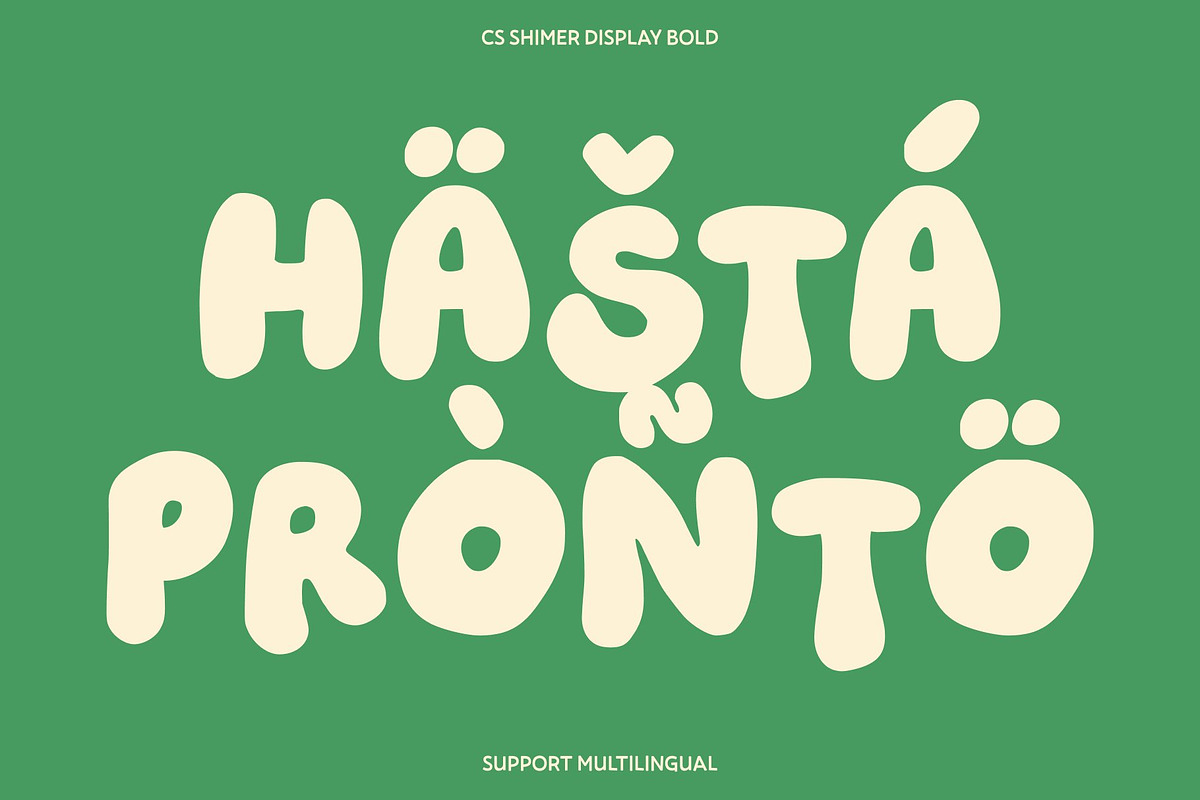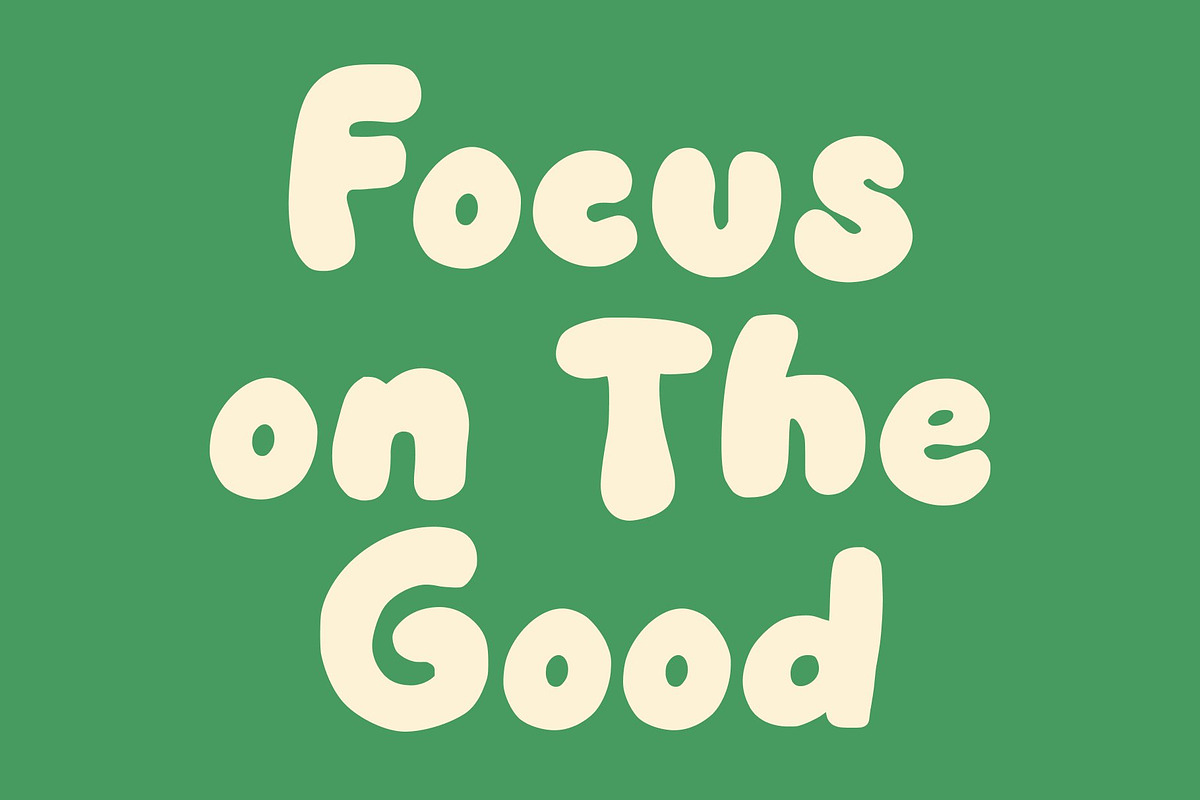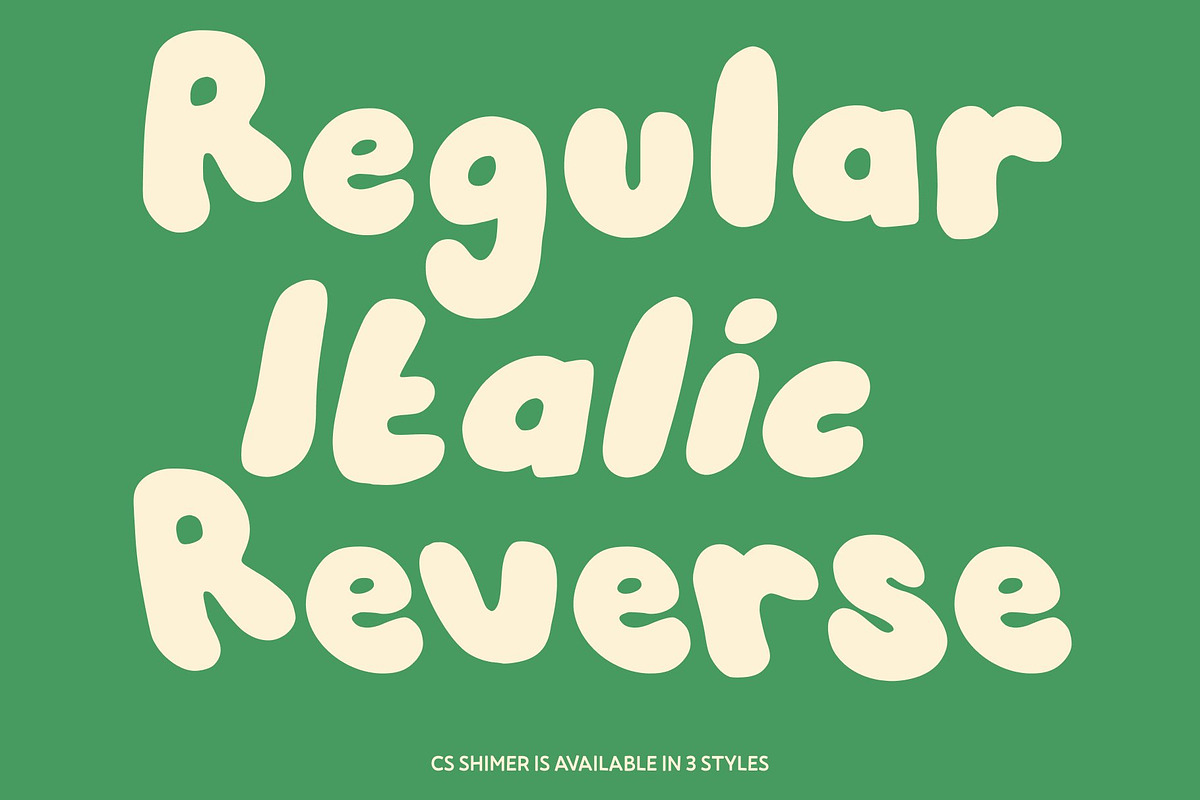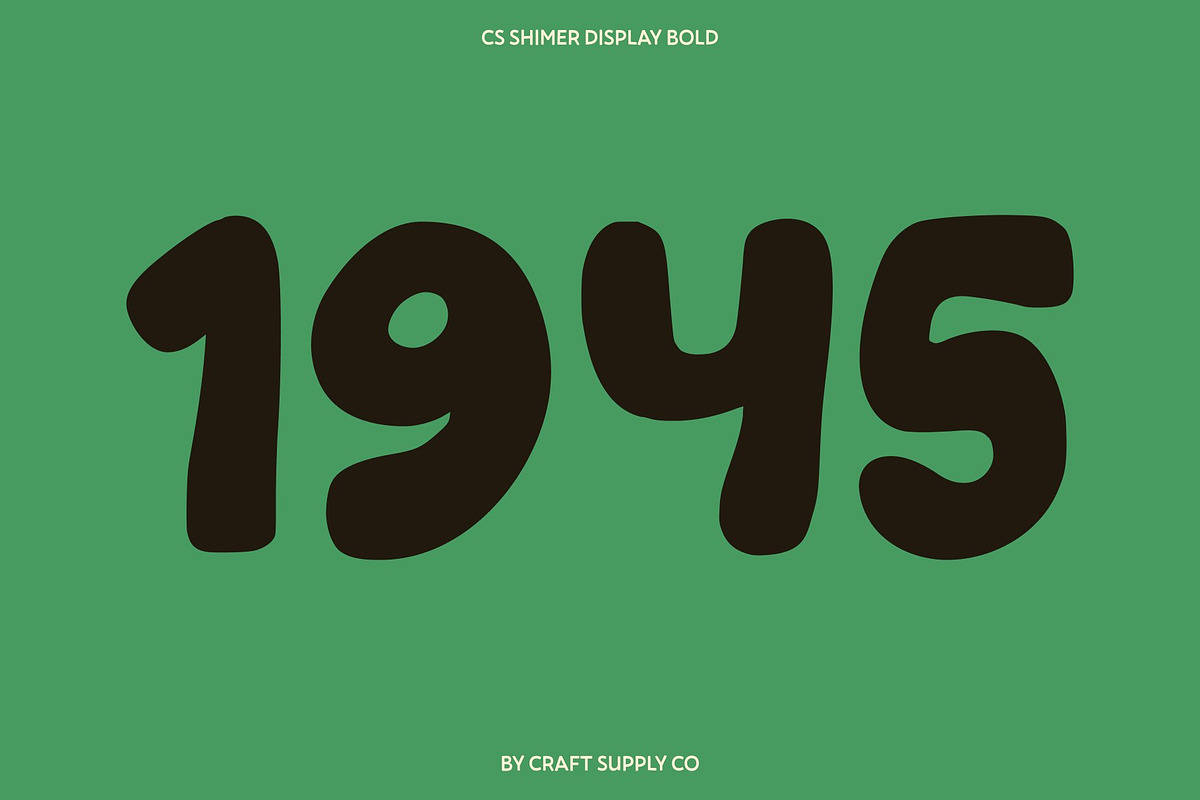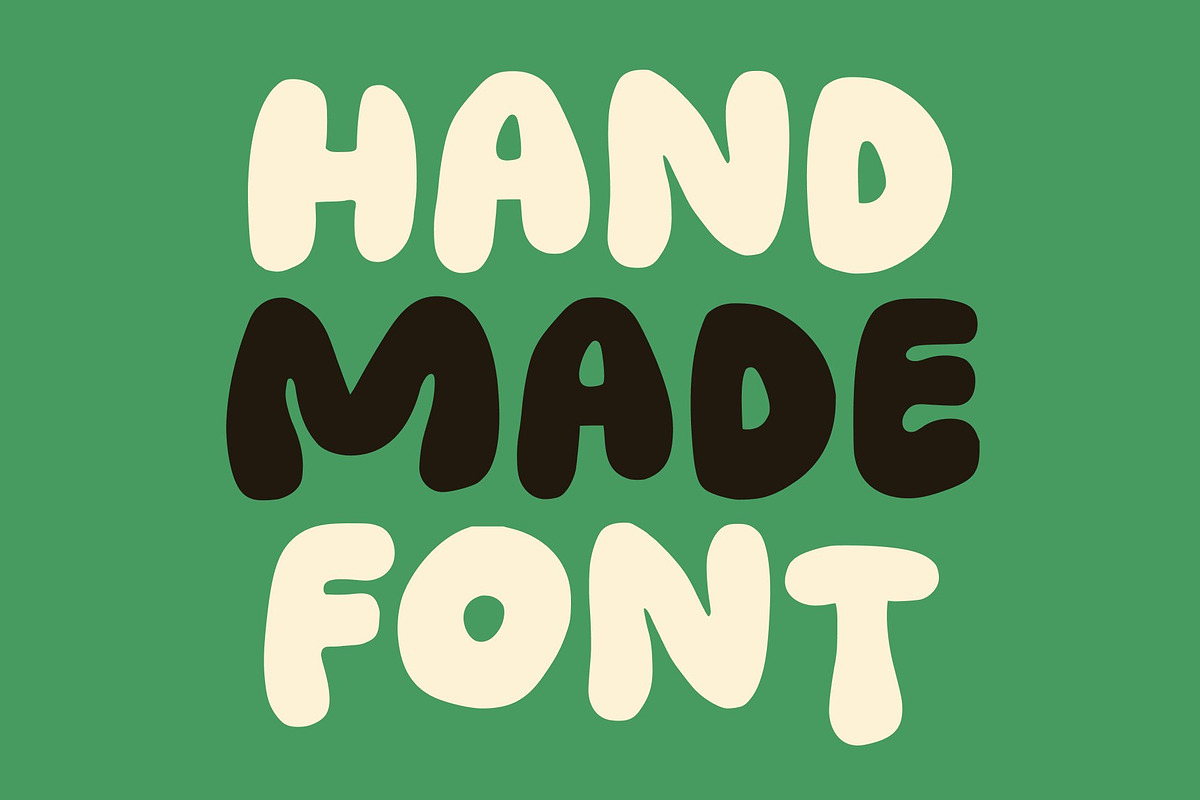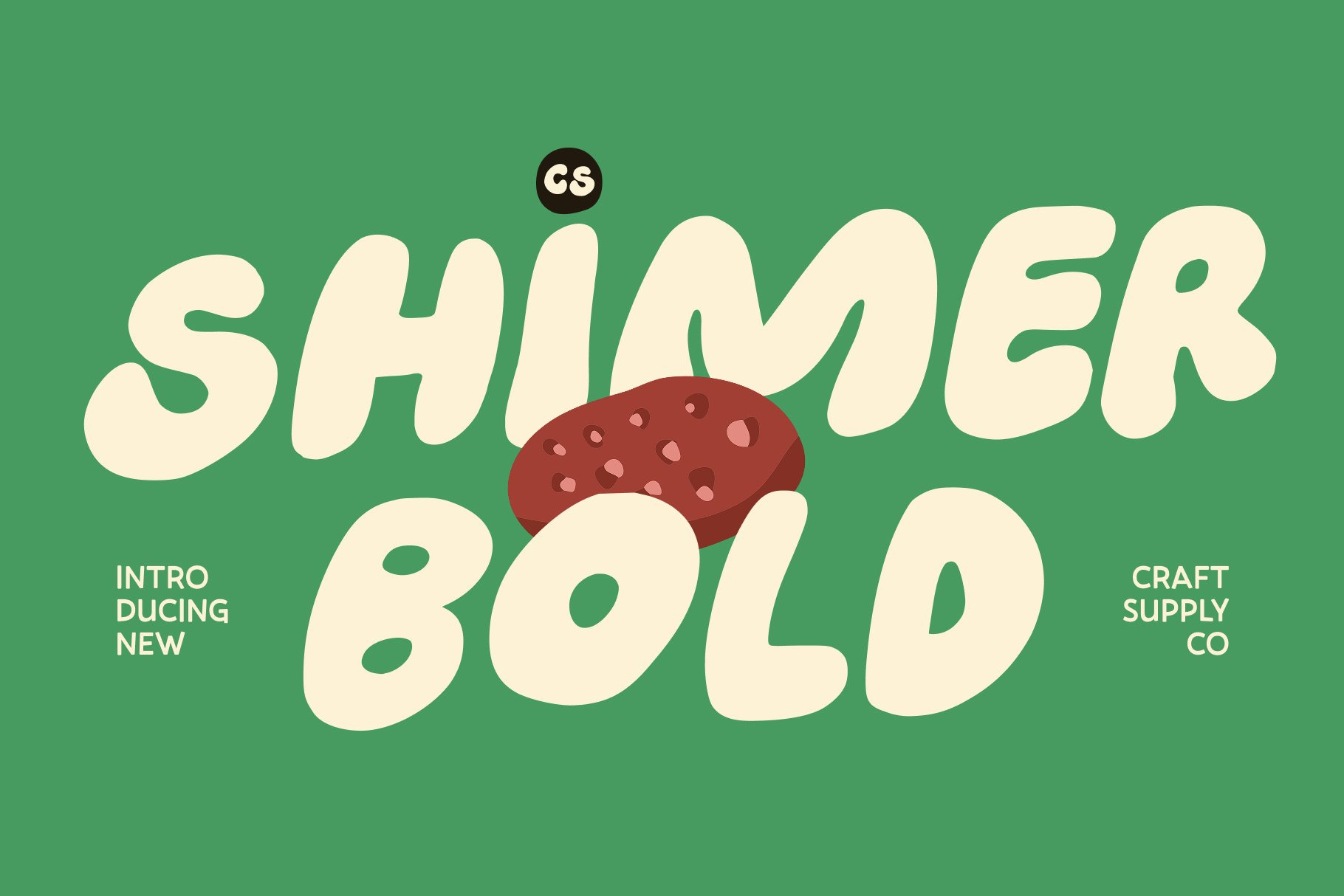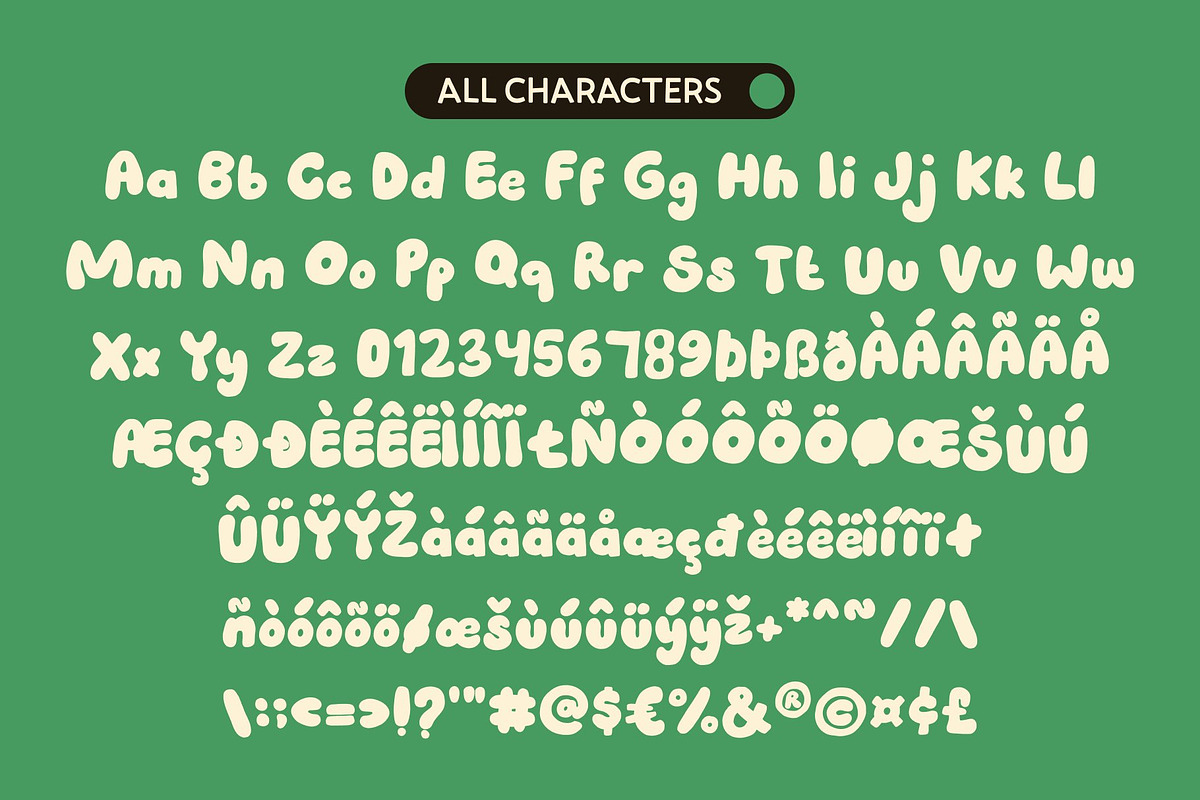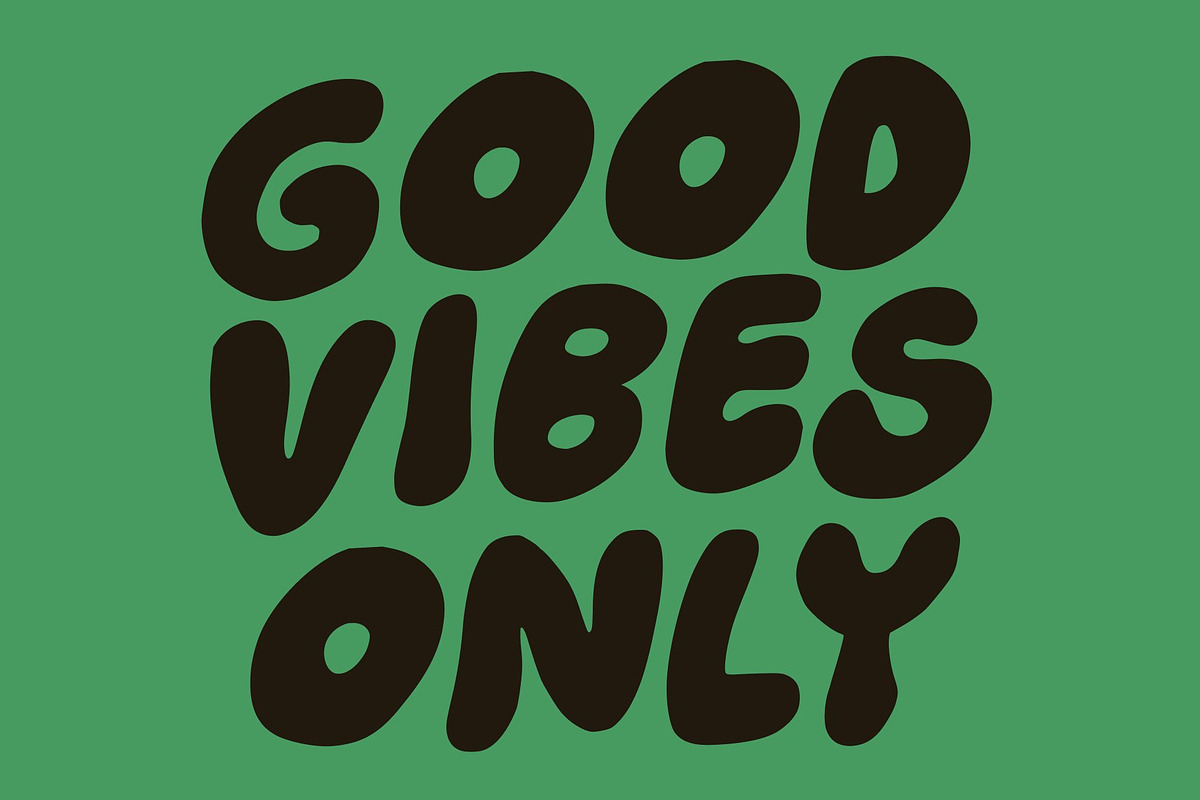
CS Shimer – Bubble Font
CS Shimer – Bold Bubble Children’s Font with Playful Energy
Bold Bubble Shapes with Fun Personality This is a children’s font designed to burst with charm, energy, and joyful expression. Its bold, bubble-like shapes create a playful visual experience that instantly captures attention. Each letter feels soft, friendly, and bouncy perfect for designs that aim to spark happiness and creativity.
Funky, Cute, and Full of Energy The funky curves and cute details of this font bring a spirited vibe to any layout. Its expressive style radiates fun, making it ideal for projects that need to feel bright and imaginative. The energetic design encourages movement and excitement, giving your text a delightful personality that feels both youthful and engaging.
Perfect for Children’s Designs and Playful Themes This font shines in children-focused visuals, from storybooks and educational materials to playful logos and kid-friendly packaging. Its approachable style helps create designs that feel safe, fun, and full of wonder. Whether you’re designing for toddlers, young readers, or family-oriented content, this font adds the perfect touch of joy.
Great for Books, Creative Campaigns, and Playful Branding With its lively and cheerful aesthetic, this font works beautifully in book titles, playful branding, creative campaigns, posters, and interactive media. The bold bubble shapes make your words stand out with personality and charm, ensuring your designs feel vibrant, memorable, and full of life.
- CS Shimer Regular
- CS Shimer Italic
- CS Shimer Reverse Italic